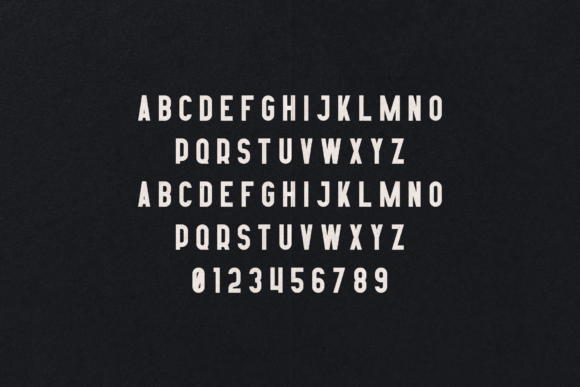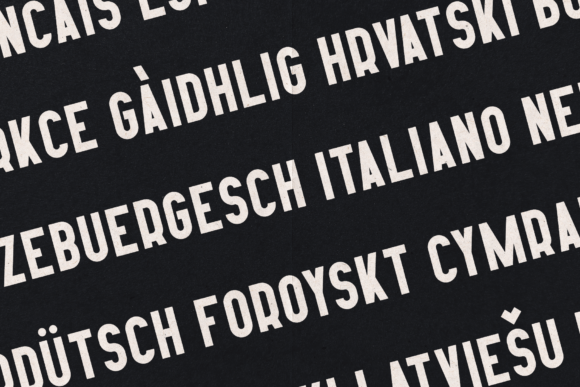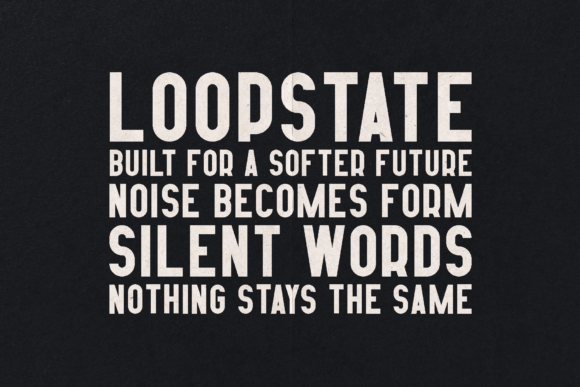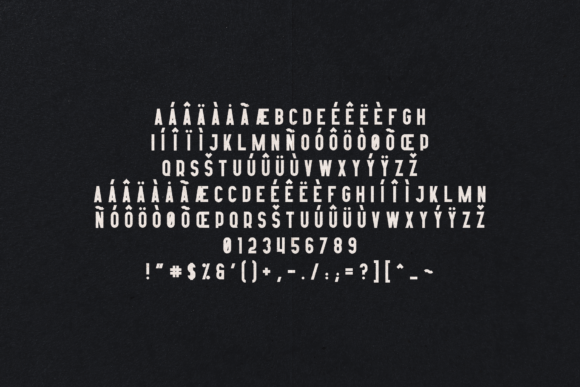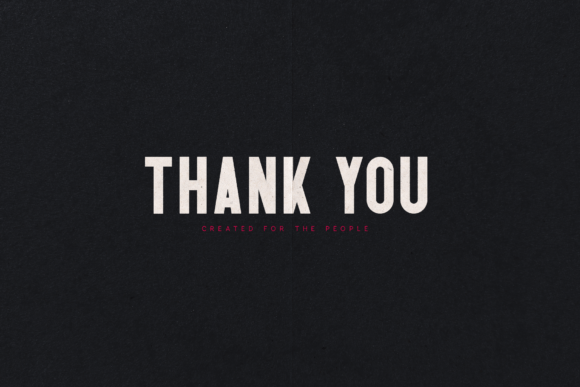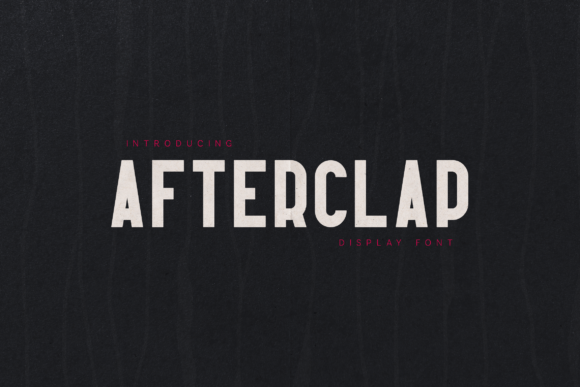
Introducing Afterclap Font: The Ultimate Bold Condensed Display Font
In the world of typography, a font can make or break a design. For designers and crafters looking for a bold and modern font to elevate their visual identity, look no further than Afterclap Font. Designed to deliver strong visual impact and modern typographic presence, Afterclap is the perfect choice for a wide range of design applications.
What is Afterclap Font?
Afterclap is a bold condensed display font that boasts a powerful vertical rhythm, creating typography that feels structured, modern, and highly legible even at large display sizes. Its condensed design makes it ideal for use in a variety of contexts, from branding design and poster typography to editorial headlines and packaging design.
Key Features of Afterclap Font
- Bold and Condensed Design: Afterclap’s bold and condensed design makes it perfect for creating strong visual impact and modern typographic presence.
- High Legibility: The font’s powerful vertical rhythm ensures high legibility even at large display sizes, making it ideal for use in a wide range of design applications.
- Modern and Structured Typography: Afterclap’s design creates typography that feels modern, structured, and highly legible, making it perfect for designers looking for a font that can elevate their visual identity.
Use Cases for Afterclap Font
Afterclap Font is incredibly versatile and can be used in a wide range of design applications, including:
- Branding Design: Create a strong visual identity for your brand with Afterclap’s bold and modern design.
- Poster Typography: Make a statement with Afterclap’s powerful and legible typography.
- Editorial Headlines: Add a touch of modernity to your editorial design with Afterclap’s bold and condensed font.
- Packaging Design: Create eye-catching packaging with Afterclap’s bold and legible typography.
- Modern Advertising Layouts: Use Afterclap to create modern and structured typography for your advertising layouts.
- Magazine Titles: Make a statement with Afterclap’s bold and condensed design.
- Social Media Graphics: Elevate your social media graphics with Afterclap’s modern and legible typography.
- Strong Visual Identity Systems: Create a strong visual identity for your brand with Afterclap’s bold and modern design.
Why Choose Afterclap Font?
With so many fonts available, why choose Afterclap? Here are just a few reasons why Afterclap stands out:
- Unique Design: Afterclap’s bold and condensed design sets it apart from other fonts, making it perfect for designers looking for a unique and modern font.
- High Versatility: Afterclap can be used in a wide range of design applications, making it a great addition to any designer’s font library.
- Legibility: Afterclap’s powerful vertical rhythm ensures high legibility even at large display sizes, making it perfect for use in a variety of contexts.
In conclusion, Afterclap Font is a bold and modern font that is perfect for designers and crafters looking to elevate their visual identity. With its unique design, high versatility, and high legibility, Afterclap is the perfect choice for a wide range of design applications. Whether you’re creating branding design, poster typography, editorial headlines, or packaging design, Afterclap is sure to deliver strong visual impact and modern typographic presence.